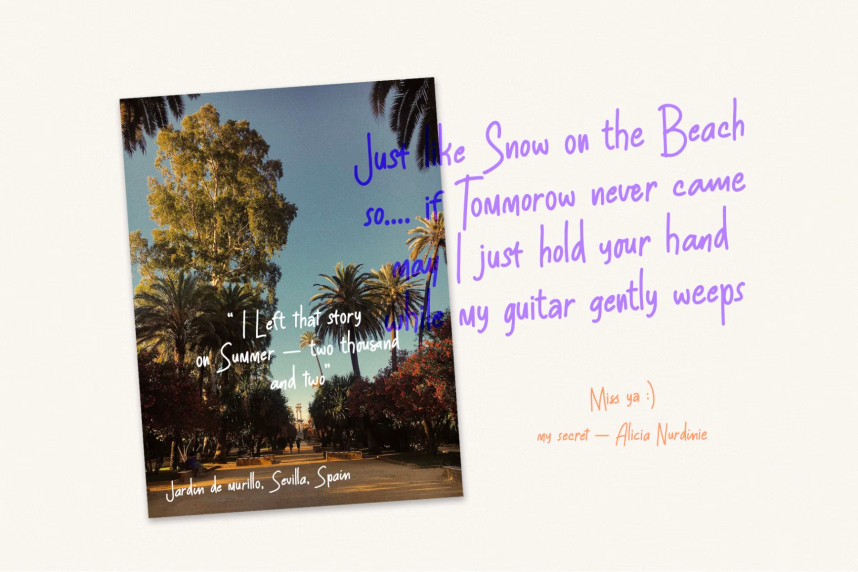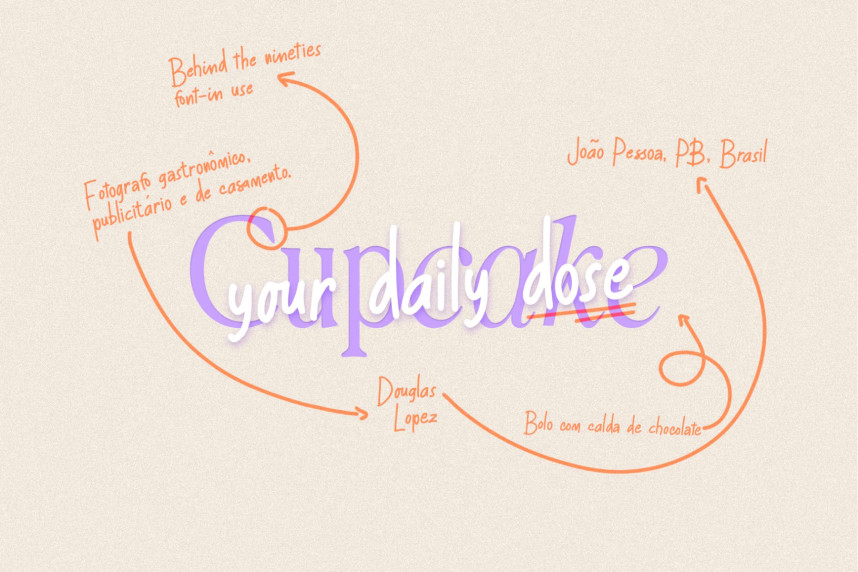
Red Ink Fun Notebook Scribble Type Font
Introducing Red Ink – The Perfect Blend of Playful Notes & Doodle-Like Elegance!
Red Ink is a handwritten script font that captures the spontaneity of real handwriting, mimicking the natural strokes of a pen on paper. Designed for those who love casual, quirky, and fun lettering, Red Ink brings a warm, personal, and non-stiff feel to any design. The organic curves and stylistic alternates make each letter feel uniquely handwritten, ensuring an authentic, handwritten note vibe.
Perfect for journals, notebooks, invitations, social media posts, and branding, Red Ink is crafted for designers looking for a playful, childlike, yet professional aesthetic. Its contextual alternates and ligatures make each word flow naturally, just like real handwriting.
Where to Use Red Ink?
Wedding Invitations & Stationery – Add a handwritten charm to wedding menus, place cards, and thank-you notes.
Branding & Social Media – The ideal choice for boutique brands, casual logos, quote designs, and whimsical branding.
Journals, Diaries & Planner Stickers – Looks amazing in GoodNotes, Procreate, and digital planners!
Children’s Books & Classroom Materials – Create fun, engaging, and nostalgic educational designs.
Features:
Uppercase & Lowercase Letters
Ligatures & Alternates for a natural handwriting effect
Multilingual Support